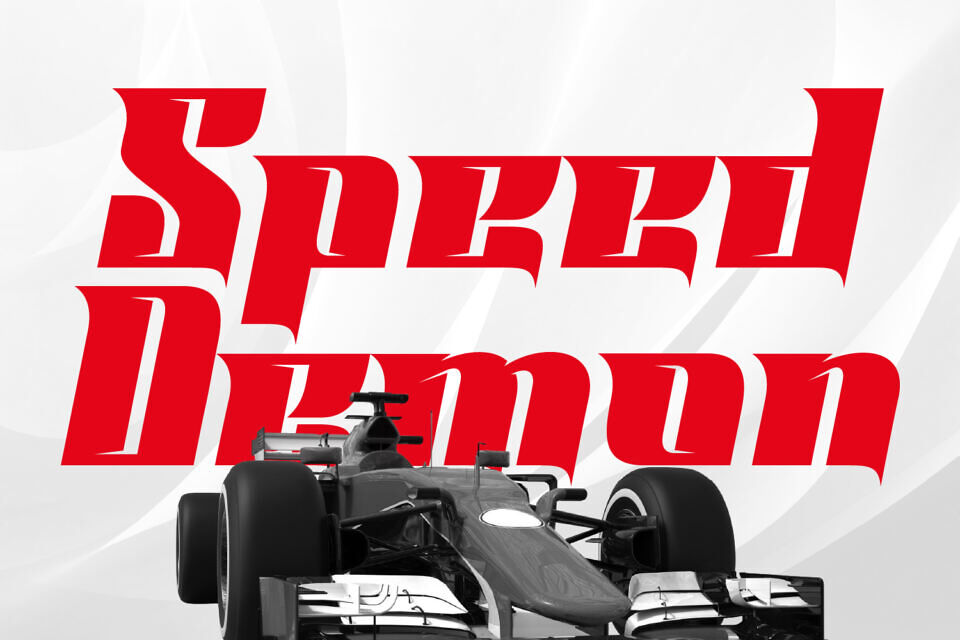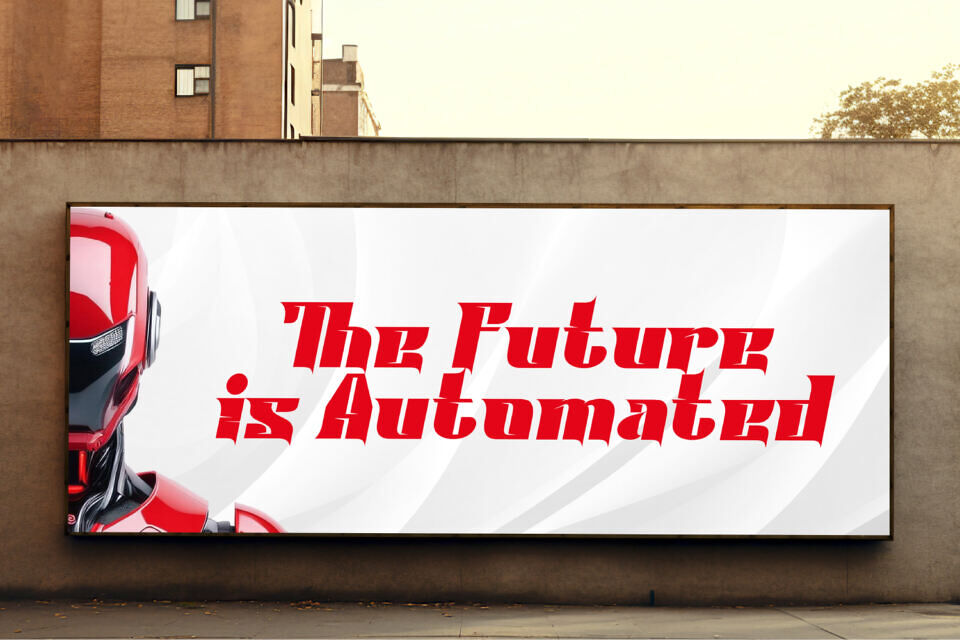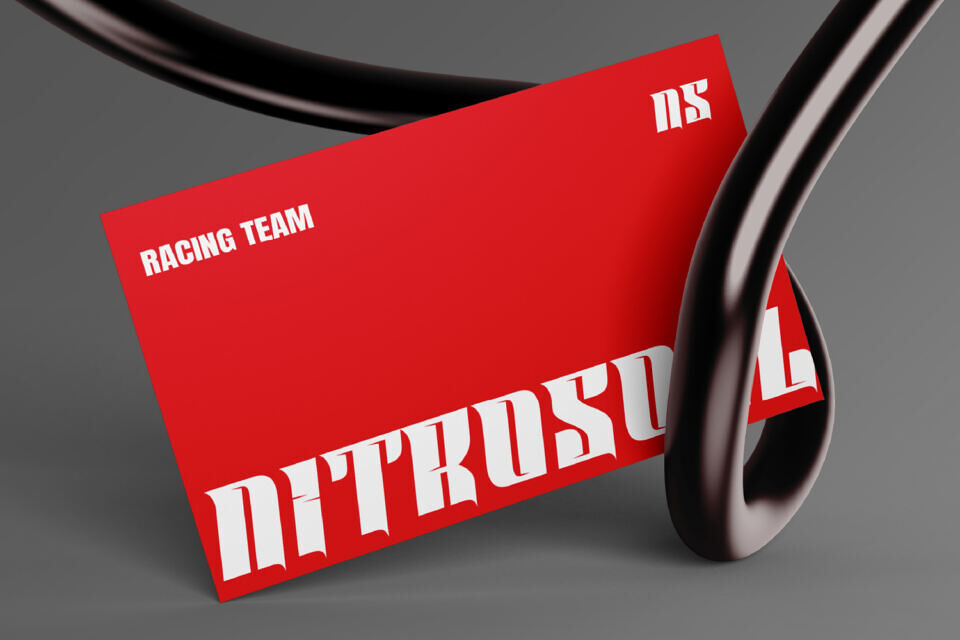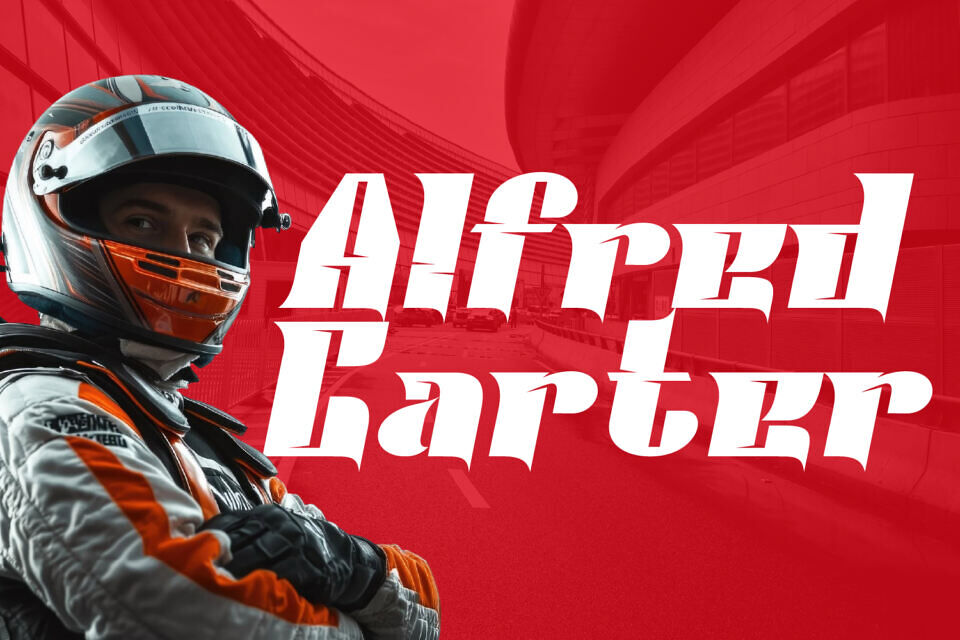
Aimflash Font
Aimflash is a bold and dynamic display font designed to bring speed, power, and energy to your designs. Inspired by the world of motorsports, Aimflash features sharp angles, fast lines, and an aggressive stance that makes it perfect for racing posters, automotive branding, sport logos, and adrenaline-fueled headlines.
With its sporty aesthetic and impactful presence, Aimflash delivers a sense of motion and intensity—whether you’re designing for a racing team, extreme sports brand, or high-performance product.